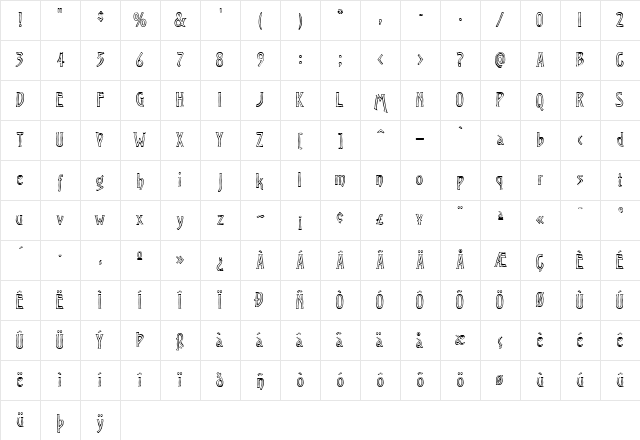
Virile Open Free Font
Virile Open
Style: Open
Complete Virile Open glyph index. Displaying only characters natively supported by Virile Open font.
Design Context for Virile
Virile is a composed and adaptable typeface that performs quietly and consistently across a wide range of design contexts.